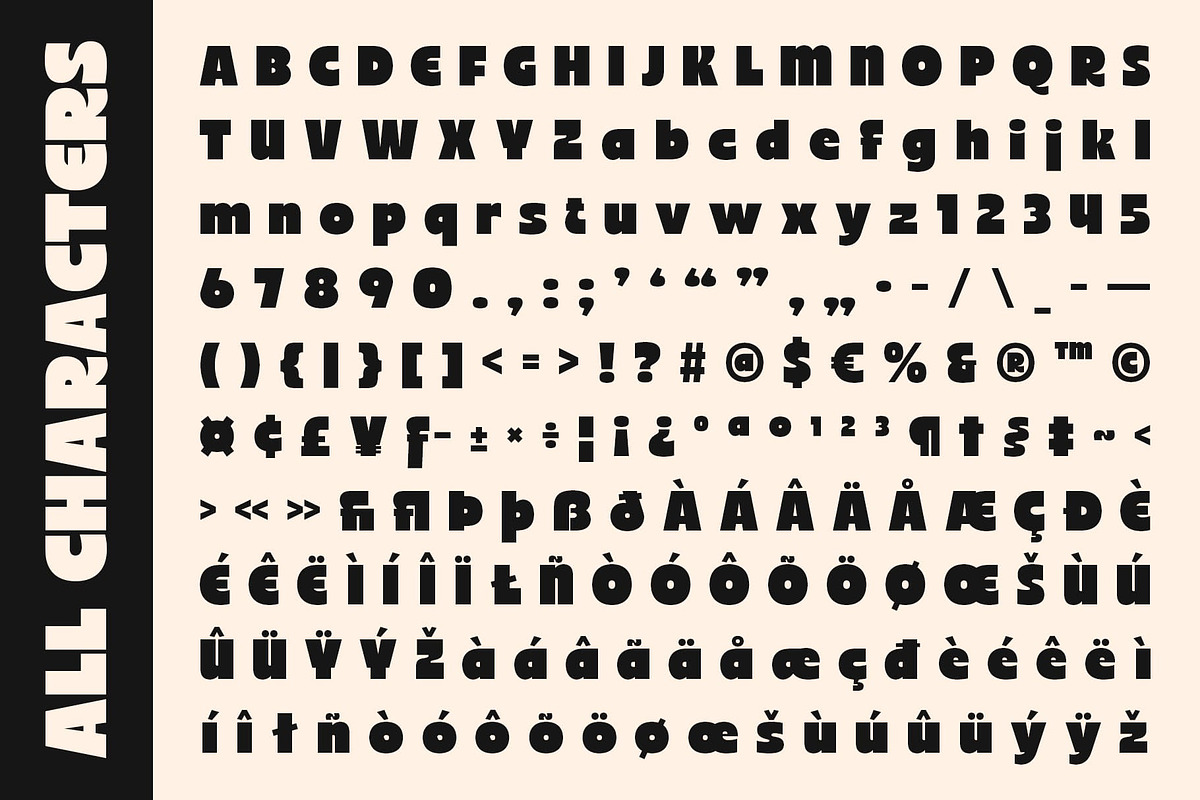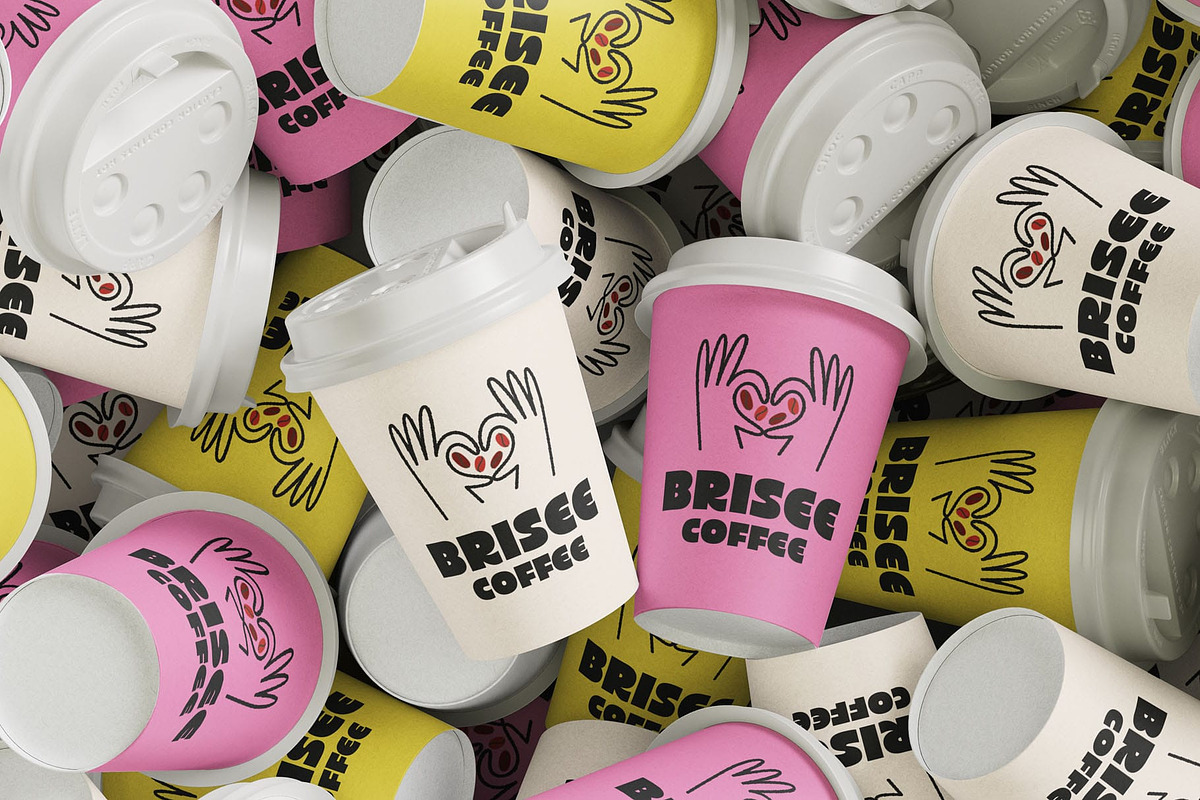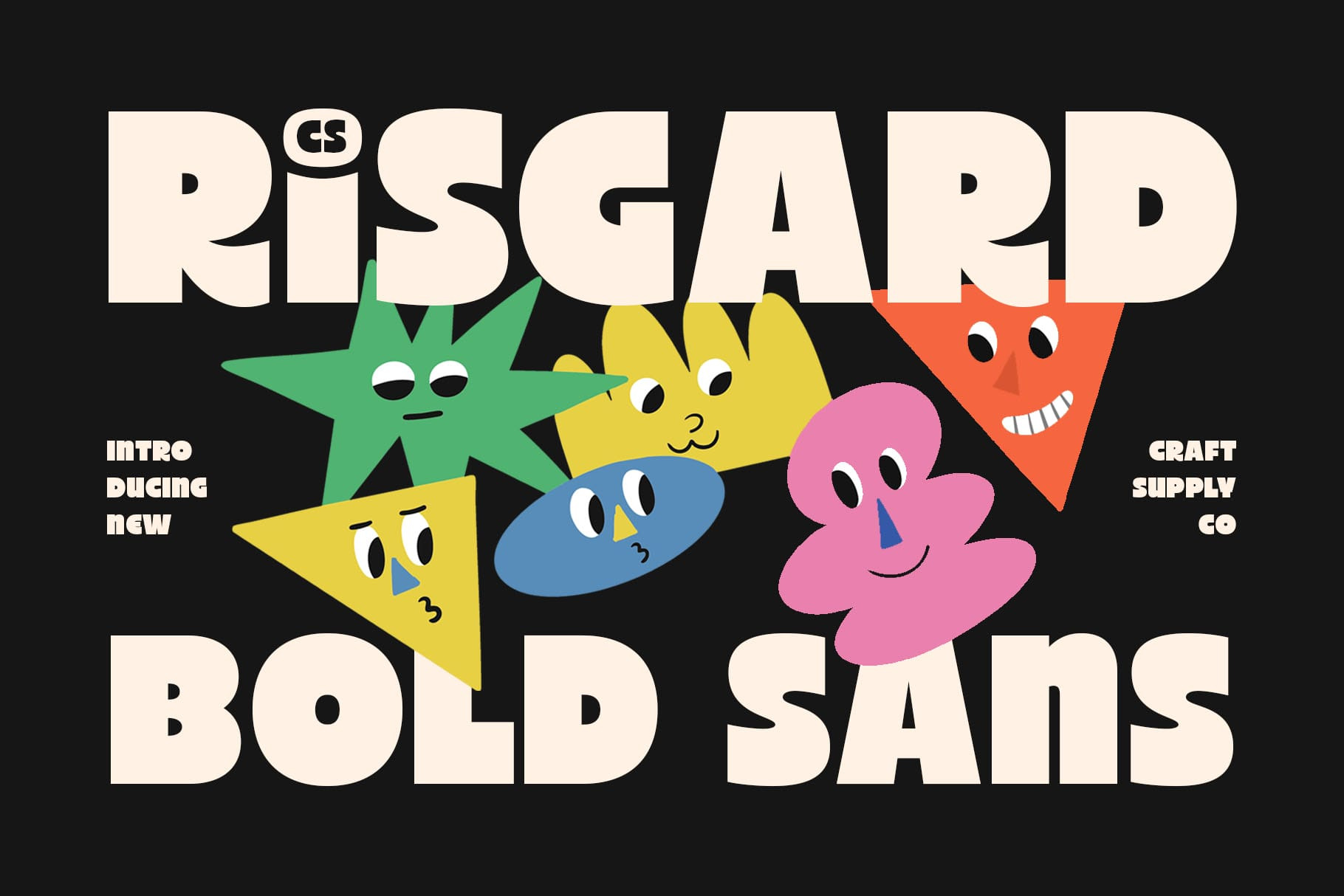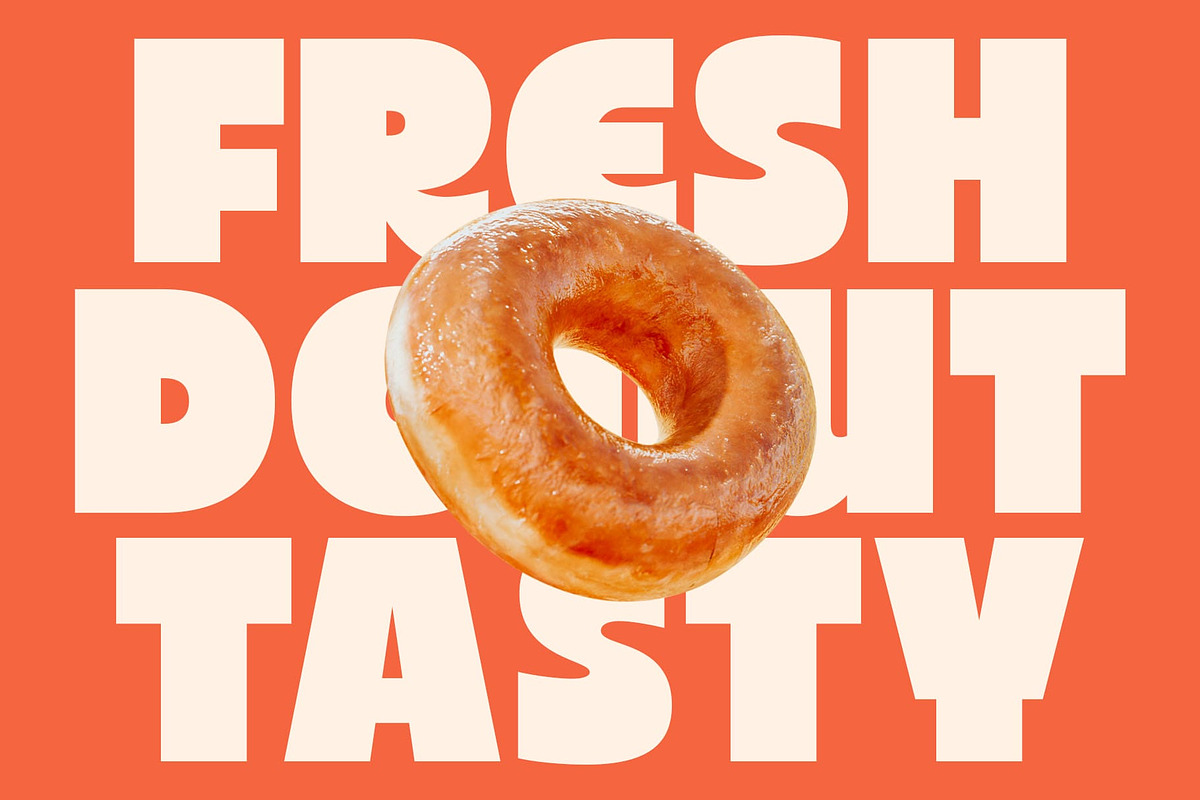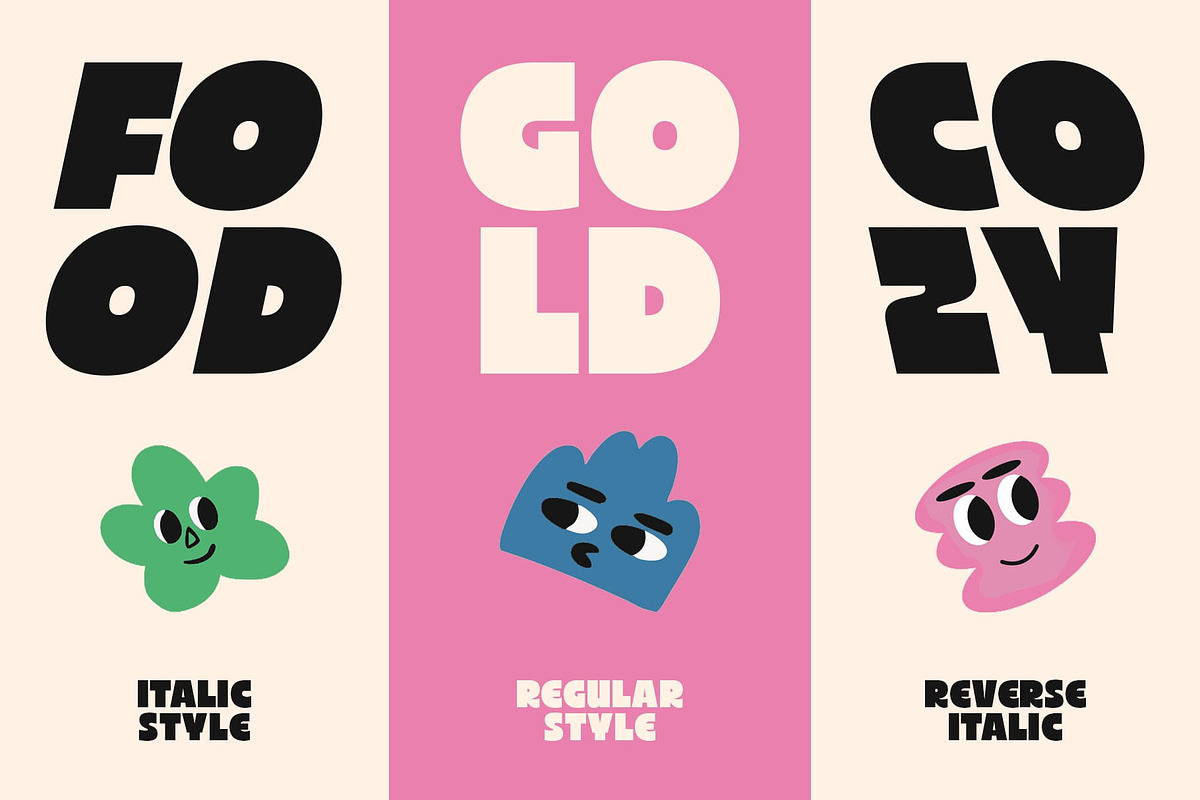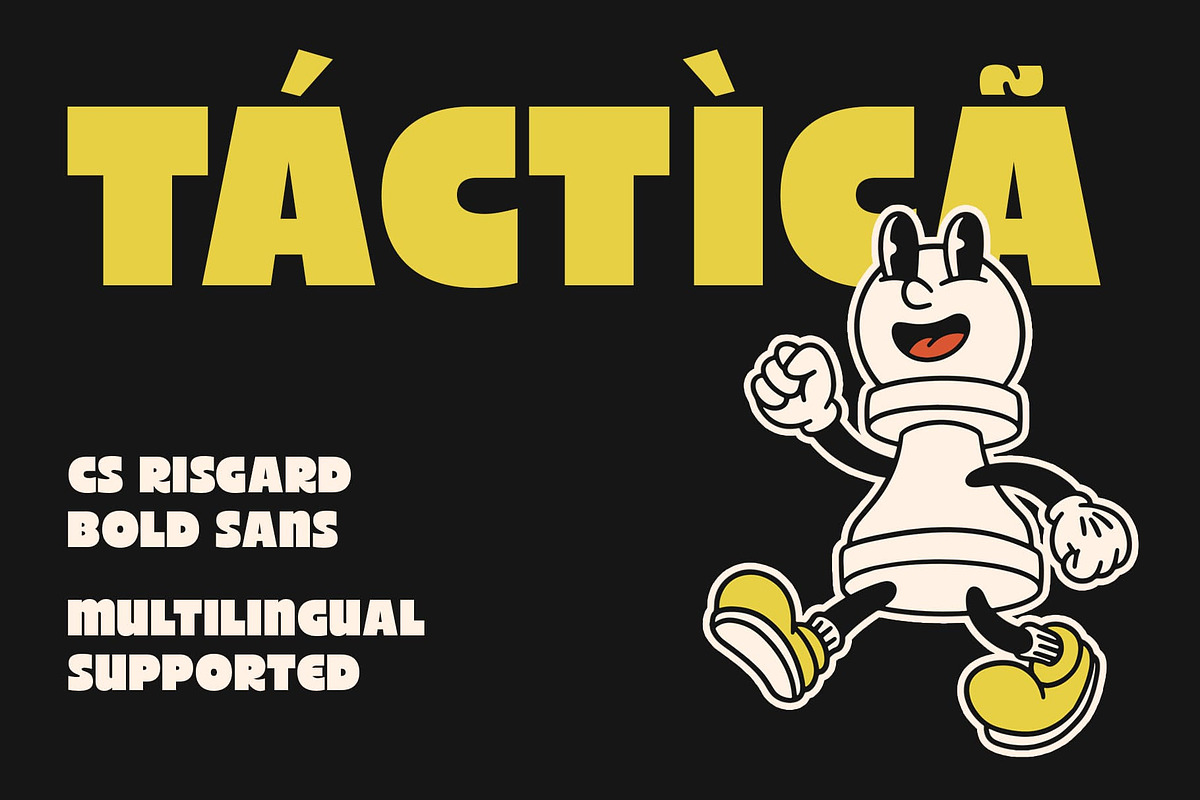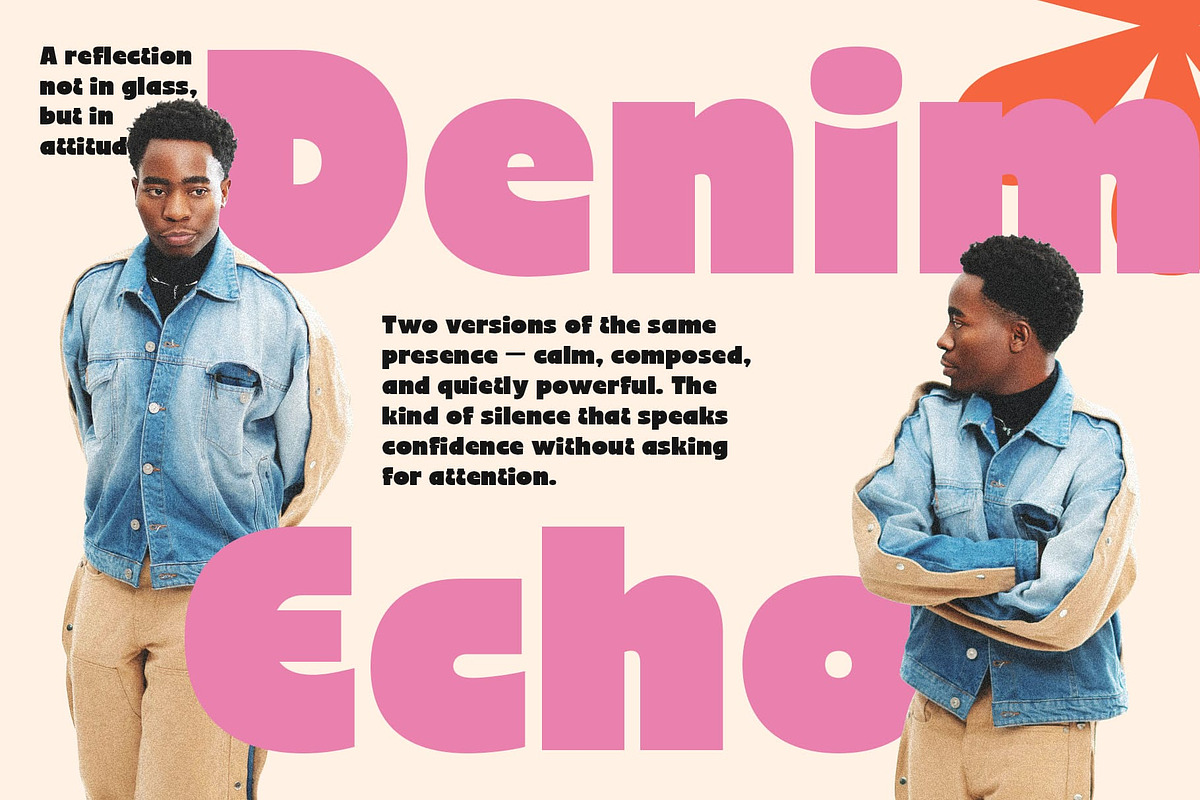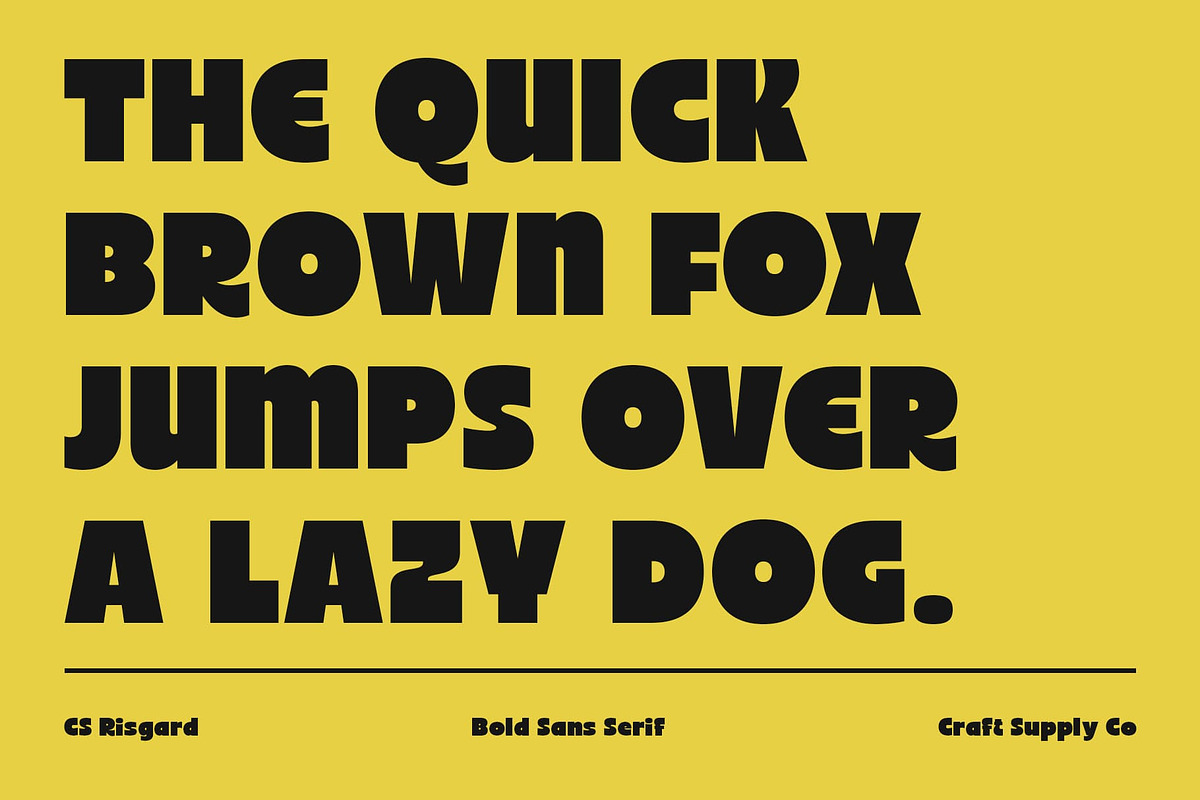
CS Risgard – Bold Sans Font
CS Risgard – Bold Modern Sans Serif with Funky Energy
Strong Shapes with Modern Confidence This is a modern sans serif font defined by its bold, clean, and confident forms. Each letter is crafted with precision, creating a sense of balance and impact that commands attention. Designed to stand out, this typeface embodies modern energy and visual strength perfect for designers seeking a powerful, contemporary look.
Funky Touch for Expressive Character What sets this font apart is its funky and unique twist. Subtle design quirks give the font personality and movement, making it far more than a standard sans serif. This blend of structure and spontaneity adds a playful yet polished feel, ideal for projects that want to look creative and distinctive.
Versatile for Bold Branding Whether used in logos, posters, packaging, or modern branding, this font delivers instant visual impact. Its legibility and geometric confidence make it suitable for both digital and print use, while its expressive details bring individuality to every word.
Perfect for Creative and Energetic Designs From brand names and advertisements to event titles and editorial layouts, this font adapts seamlessly to various styles. It embodies modern power with a funky edge, making it a go-to choice for designers who want to create something bold, memorable, and full of character.